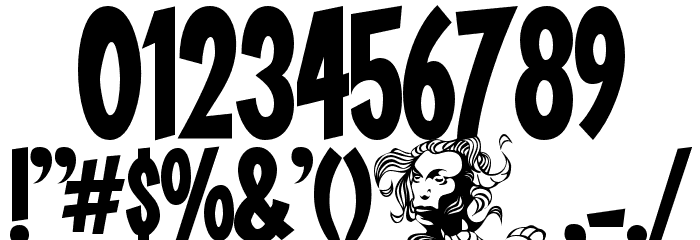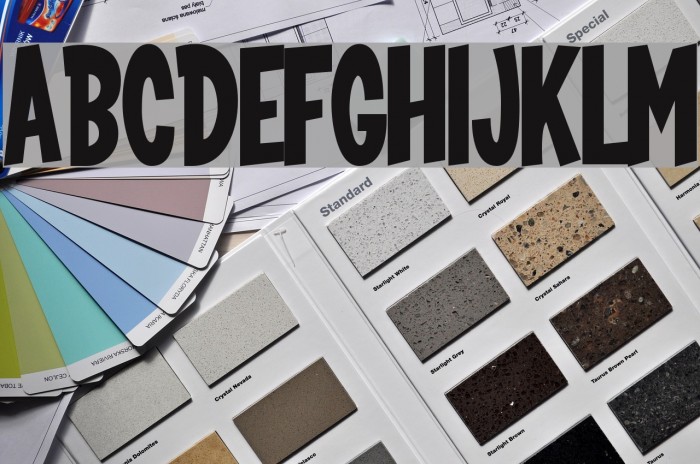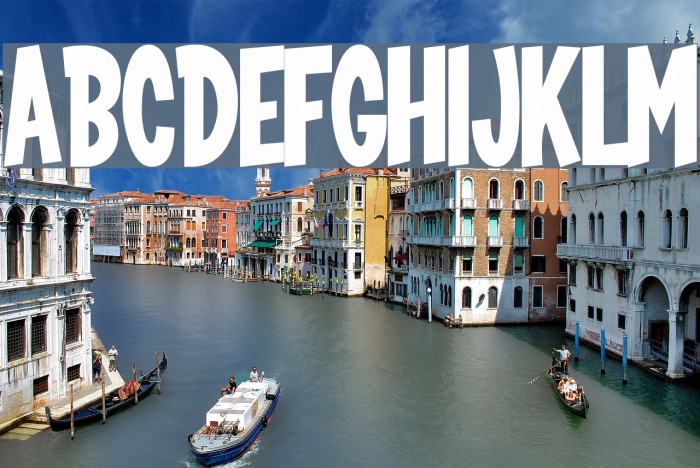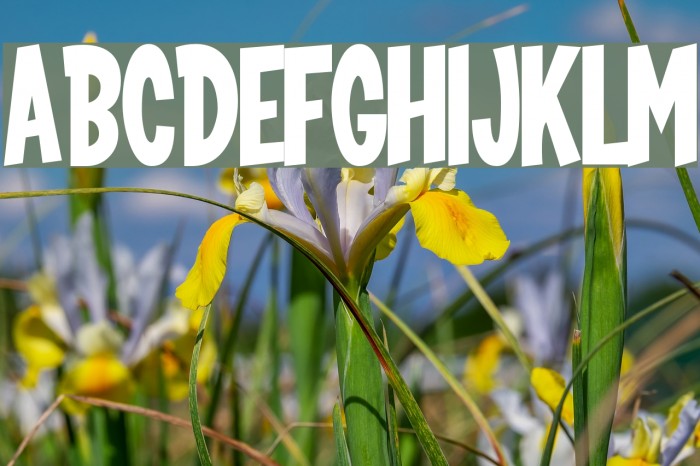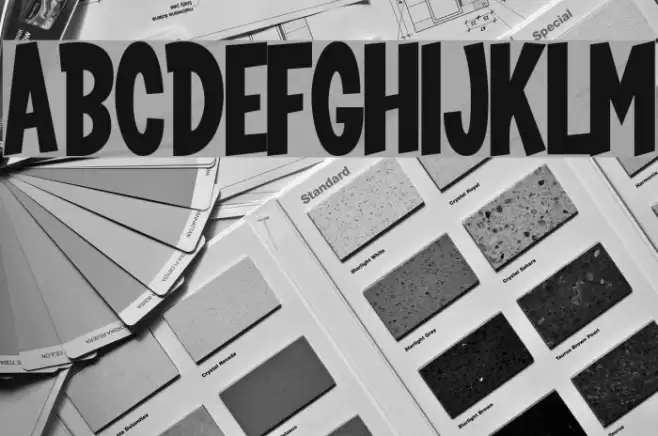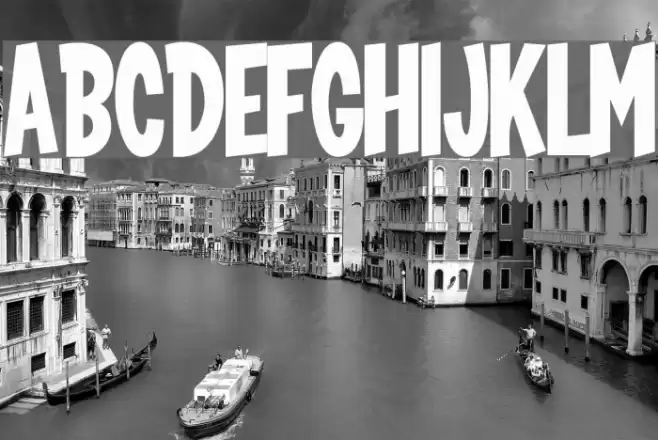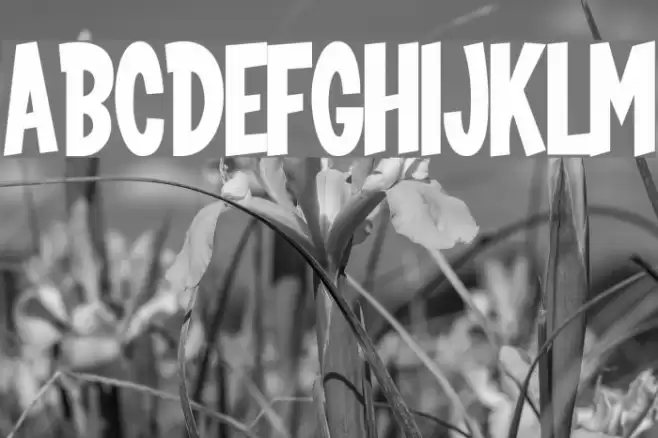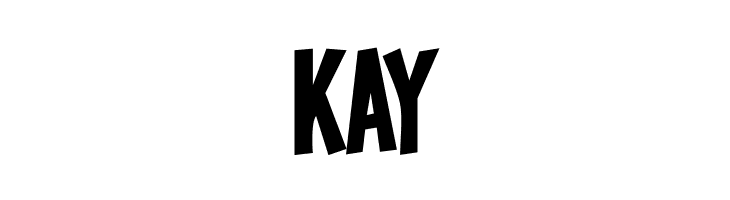
Screebie Font
This font features bold, exaggerated characters with a playful and dynamic style. The letters are thick and slightly irregular, giving them a hand-drawn appearance. The uppercase and lowercase letters maintain a consistent weight, contributing to a cohesive look. The numbers and special characters follow the same bold and lively design, making them stand out. This font's unique style is eye-catching and ideal for creative projects that require a strong visual impact.
A bold, playful font with exaggerated, hand-drawn characters.
- Proposed Projects: Ideal for posters, comic books, children's books, and any creative project needing a bold, fun aesthetic.
- Overall Style: Playful, Creative
- Use Case: Headlines, Posters, Creative Projects